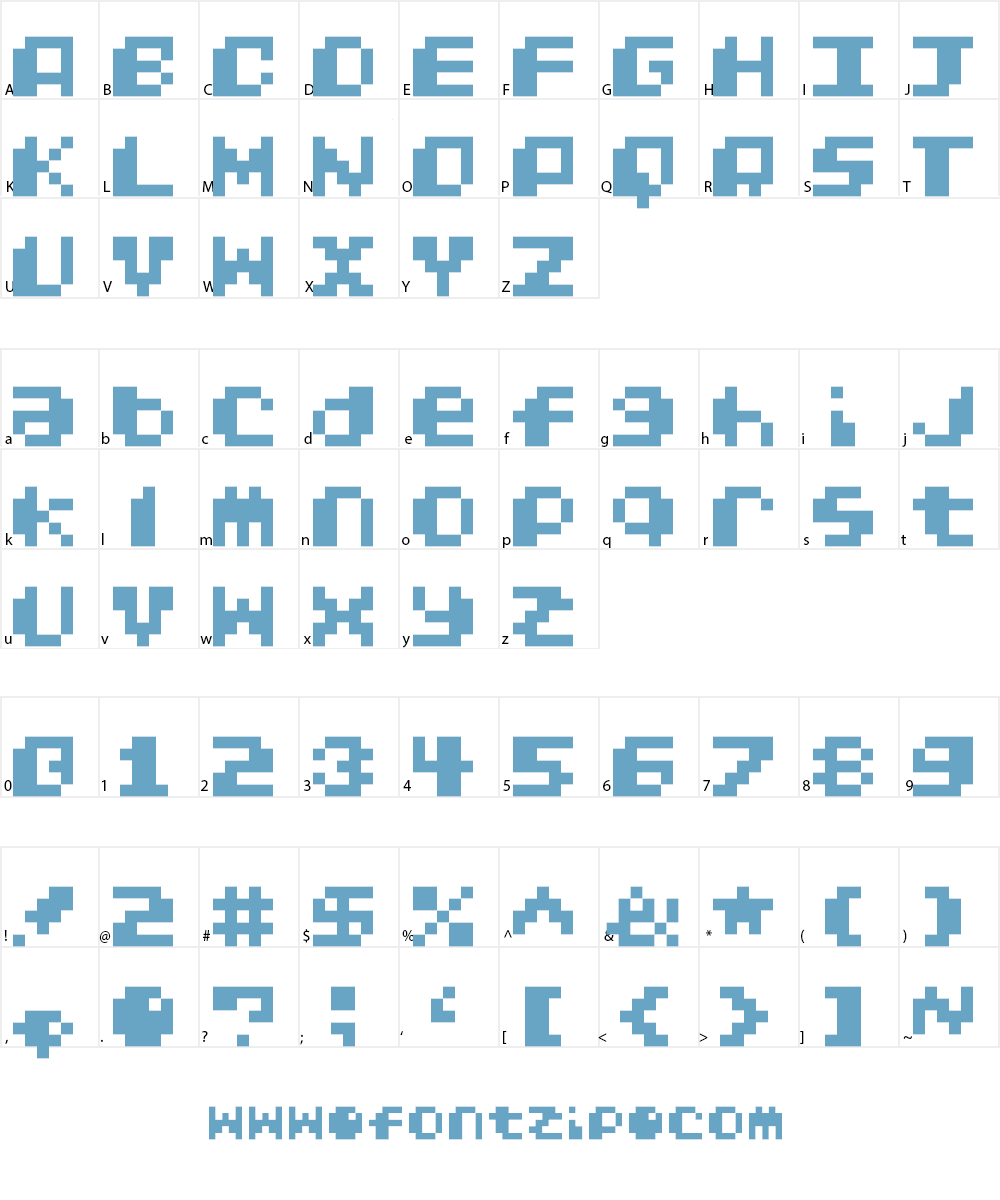
Original size: 7.5pt (use multiples of this value for pixel perfection)
A stylized 5x5 pixel font. Supports several languages! I designed it to have a slightly balloon-esque, oldschool arcade look. Feel free to use it in your games or whatever else :D